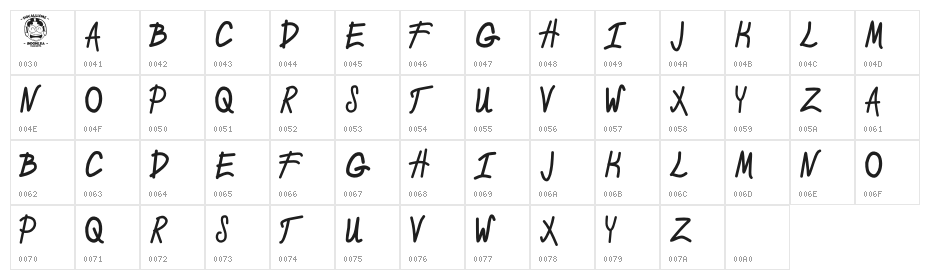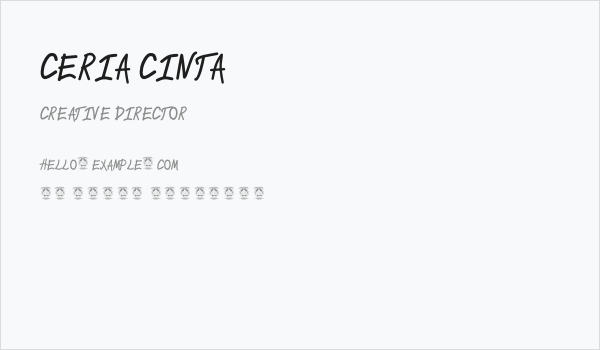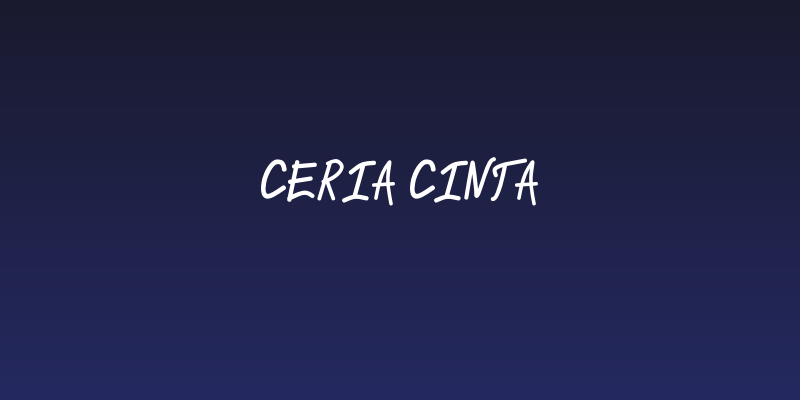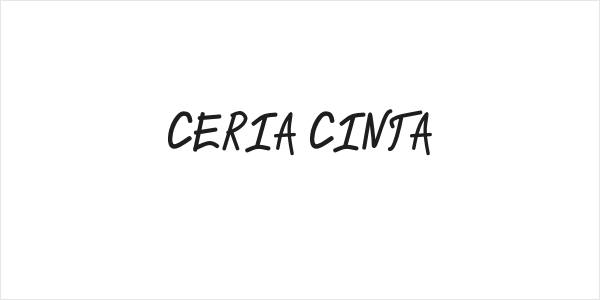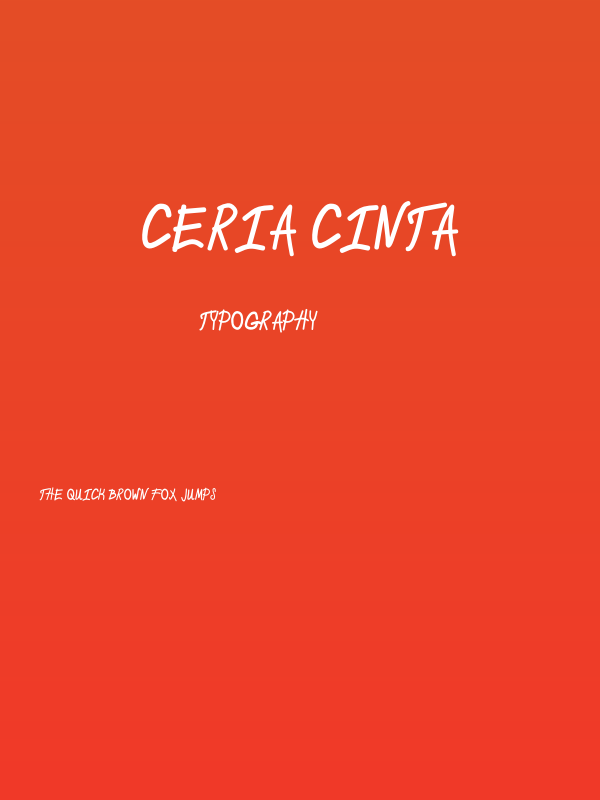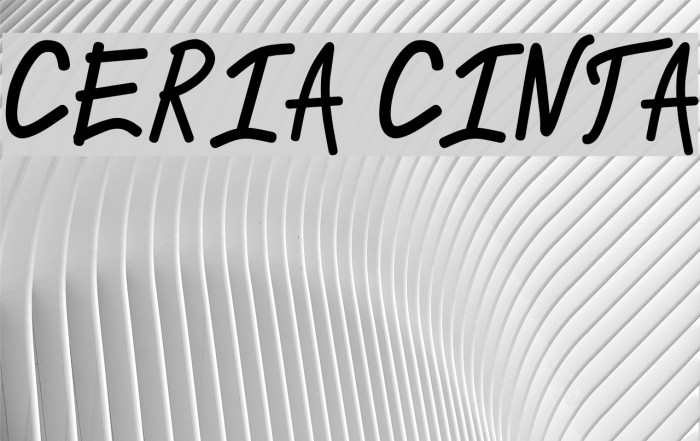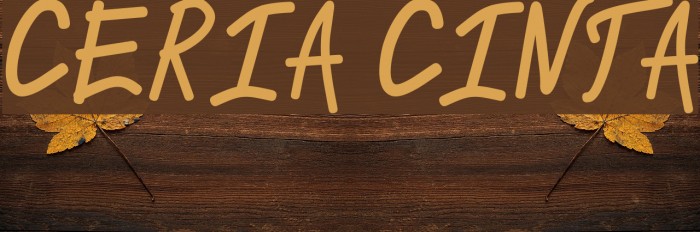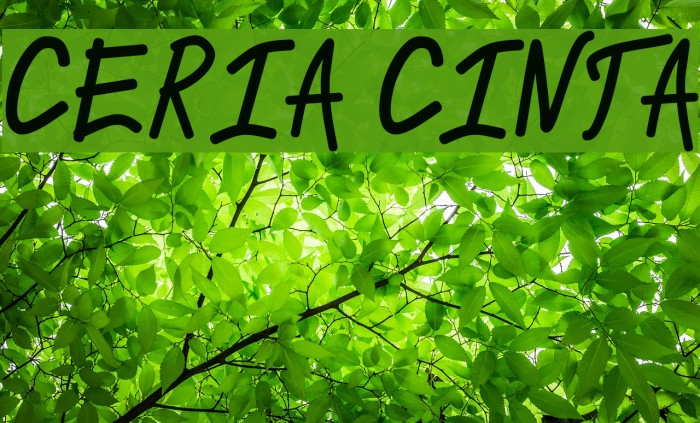
CERIA CINTA Font
CERIA CINTA Description
This font features a lively and energetic handwritten style, characterized by its fluid and dynamic strokes. The letters are slightly slanted, giving a sense of motion and informality. The uppercase and lowercase characters maintain a consistent style, with rounded edges and varying stroke widths that add a playful touch. The numbers and special characters are designed to match the overall aesthetic, ensuring a cohesive look across all text elements. This font is ideal for projects that require a personal and approachable feel, such as invitations, greeting cards, or casual branding.
| Proposed Projects | Ideal for invitations, greeting cards, casual branding, and personal projects. |